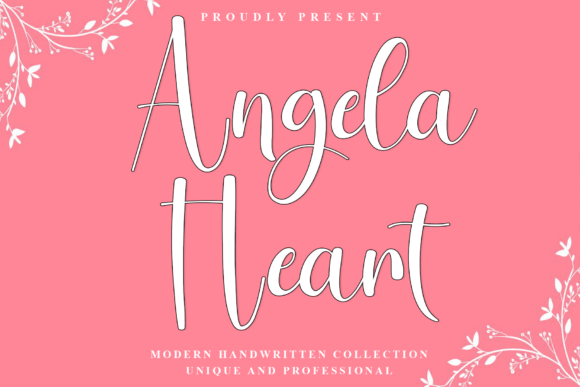
The Perfect Blend of Whimsy and Sophistication: Introducing the Angela Heart Font
As creatives, we’ve all been there – staring at a blank canvas, searching for that elusive spark to ignite our next project. For some, it’s the perfect melody; for others, it’s the perfect font. For designers, the right typography can make all the difference between a bland design and a stunning masterpiece.
Enter the Angela Heart Font, a “unique and professional” entry into the modern handwritten collection. This elegant font features tall, thin strokes with a subtle, airy slant, evoking a sense of clarity and crisp elegance. Whether you’re crafting a travel brochure, branding outdoor gear, or designing a sophisticated website, the Angela Heart Font is an invaluable asset to have in your design toolkit.
Angela Heart Font Key Features
- Font Family: Angela Heart Font
- Character Count: 230 characters, including uppercase, lowercase, numbers, and symbols
- Unique Characteristics: Hand-drawn, cursive, and script font with a touch of elegance and sophistication
Designer Review: Angela Heart Font
Overall, I think the Angela Heart Font is a great addition to any designer’s toolkit. It’s a sweet, feminine font that’s perfect for wedding invitations, baby announcements, or any other project that requires a touch of elegance.
What works well: ✨ The font’s unique, handwritten feel is immediately eye-catching, and the subtle flair on the letters adds a lot of character. ✨ The font is also highly legible, even at smaller sizes, which is a must for any font that’s going to be used in a real-world application.
Limitations: ⚠️ While the font is a lot of fun to use, it’s not without its limitations. ⚠️ One major issue is that it can be a bit too whimsical for some projects, and may not be suitable for more formal or professional applications. ⚠️ Additionally, the font may not be as versatile as some other fonts, as its unique style may not lend itself well to bold or italic uses.
Overall, I think the Angela Heart Font is a great choice for designers who are looking for a unique, feminine font to add some personality to their projects.
- Unique, handwritten feel
- Highly legible
- Perfect for wedding invitations, baby announcements, or other feminine projects
- May not be suitable for formal or professional applications
- May not be as versatile as other fonts
For optimal results, use the Angela Heart Font in combination with a bold or italic font to create contrast and emphasis.
Experiment with different font sizes and colors to make your design stand out.
The Angela Heart Font is ideal for:
Valentine’s Day and romantic-themed designs
Personalized gift tags and labels
Alternatives to Angela Heart Font for Designers
Great Vibes is a modern script font ideal for creating elegant and sophisticated designs. It’s perfect for wedding invitations, greeting cards, and other special occasions. Great Vibes is more elegant and refined compared to Angela Heart Font, which has a more playful and whimsical feel.
Creamy Script Font
Creamy Script is a beautiful, hand-painted font suitable for creative and artistic projects. It’s great for logo designs, branding, and packaging. Creamy Script has a more organic and textured feel compared to Angela Heart Font, which has a more digital and sleek appearance.
Carolyna Pro is a modern calligraphy font ideal for creating beautiful and elegant designs. It’s perfect for wedding invitations, event branding, and other special occasions. Carolyna Pro is more refined and sophisticated compared to Angela Heart Font, which has a more playful and casual feel.
Alex Brush is a beautiful, hand-drawn font suitable for creative and artistic projects. It’s great for logo designs, branding, and packaging. Alex Brush has a more organic and expressive feel compared to Angela Heart Font, which has a more digital and uniform appearance.